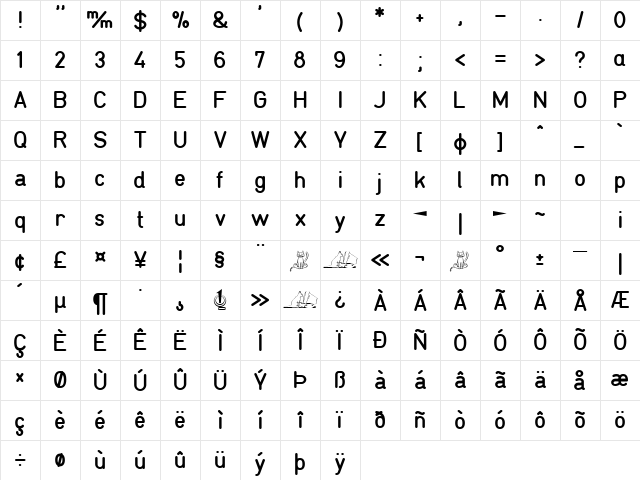
TGL 0-17 Alt Regular
Foundry: Peter Wiegel
Designer: Peter Wiegel
Design Context for TGL 0-17 Alt
TGL 0-17 Alt is a composed and adaptable typeface that performs quietly and consistently across a wide range of design contexts.